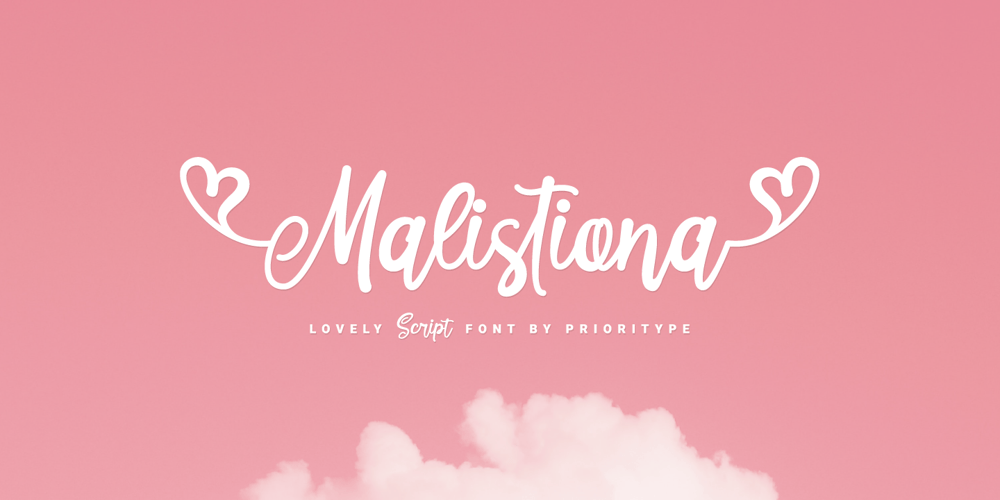
Malistiona
Malistiona font
Malistiona Font Family was designed by Prio Nurokhim Aji and published by Prioritype. Malistiona contains 1 styles and family package options. Script font with a dazzling touch of love. I made this font with great pleasure. Given the alternative options and ligatures available, you can get a beautiful design feel. You can use this font for your design purposes such as craft designs, logos, quotes, wedding invitations, etc. See some of the previews above for reference.Features:-Uppercase-Lowercase-Numeral-Punctuation-Multilingual-Ligature-AlternateNote: To access the Opentype feature, it would be better if you use a program that supports it and is available with a glyph panel so you can see various alternative characters. Examples of programs such as Adobe Illustrator, Corel Draw or Inkscape.Thanks.